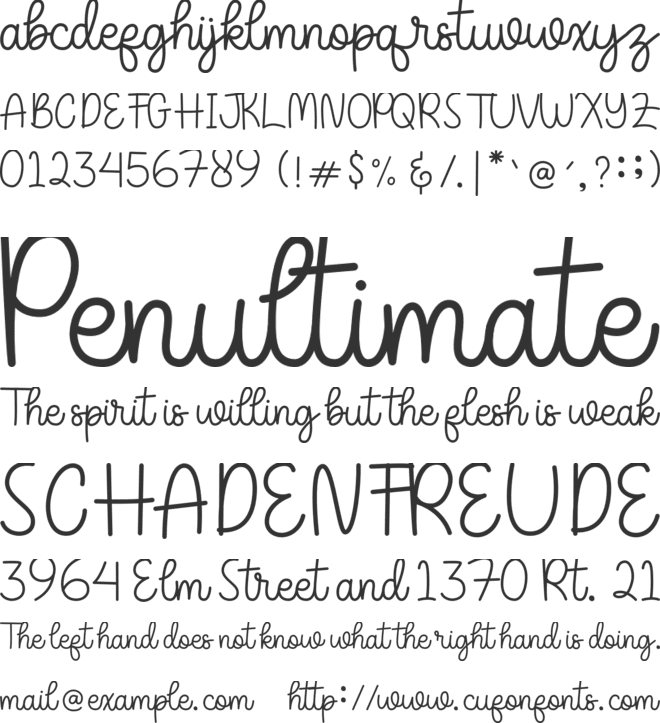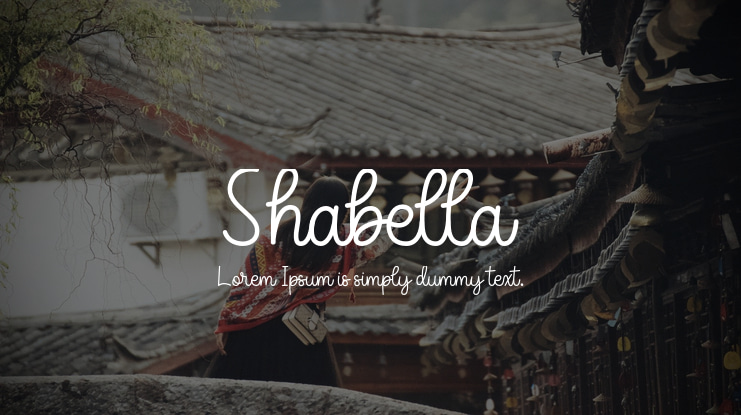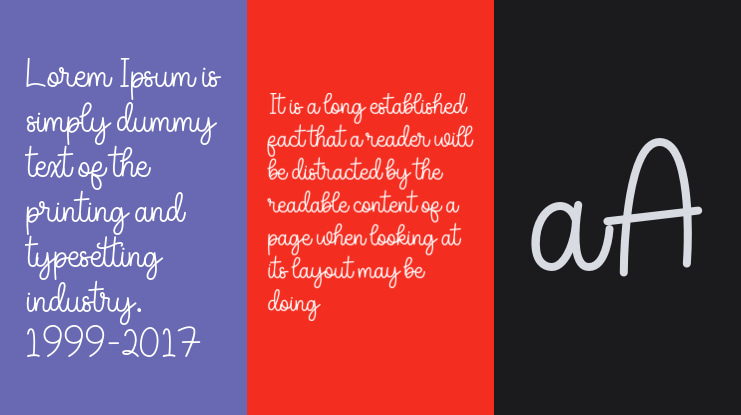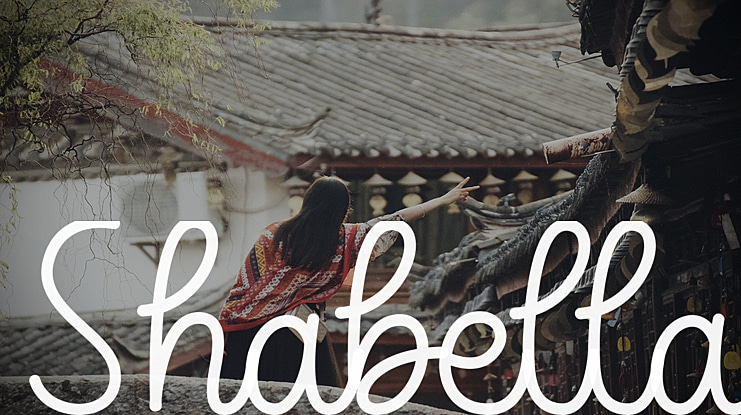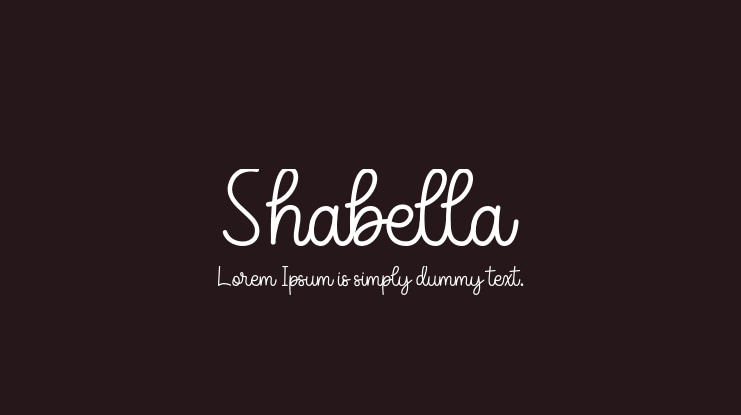
Shabella Font Family
Introducing Shabella by Tlatoustype
A fancy and elegant handcrafted font that create to impress your audience and make your branding shine.
Make your projects dance with this elegant and wonderful font wherever you use it. Use it for your
headings, logos, ads, printed quotes, packaging, and even your website or social media branding.